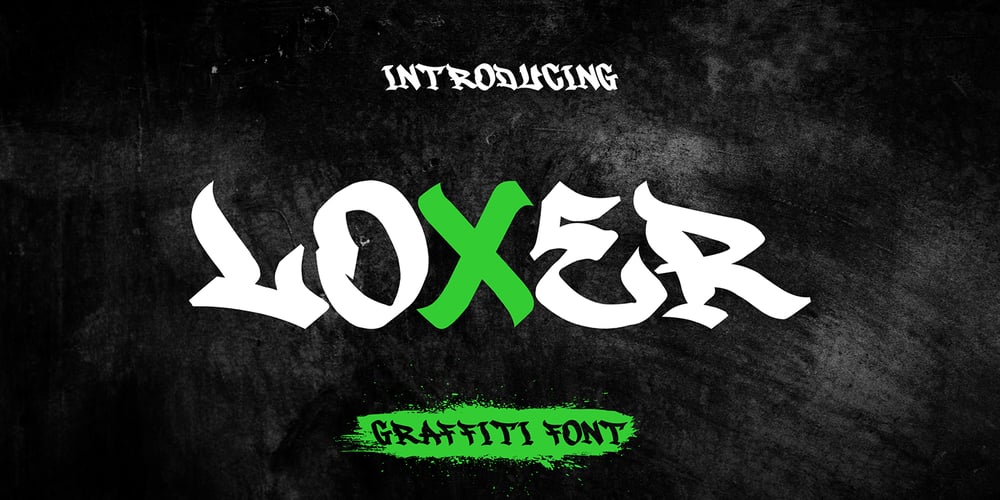
Loxer Graffiti Font Family was designed by Sipanji and published by Sipanji21. Loxer Graffiti contains 1 styles and family package options. “Loxer” is a monoline font with a graffiti theme. It is perfect for a wide range of urban or street-themed design projects, such as streetwear design, logo design, car/motosport decals, skateboard decals, and other similar designs. With its edgy and bold appearance, “Loxer” brings a sense of energy and attitude to your designs. The font’s monoline style and slight shadow effect create a 3D effect that adds visual interest and makes your designs stand out. Whether you’re looking to create a strong and impactful design or add a touch of urban style to your projects, “Loxer” is the font for you.